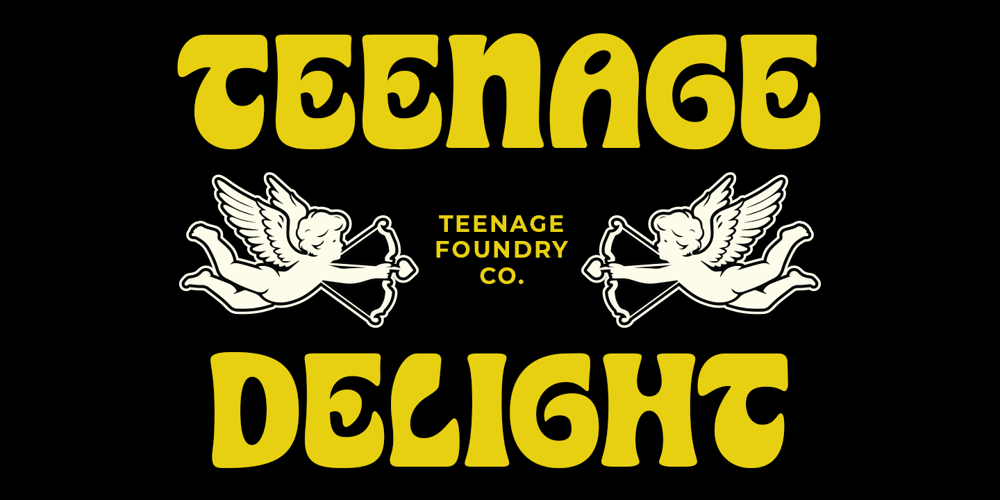
Teenage Delight Font Family was designed by Miftahul Habib and published by Teenage Foundry. Teenage Delight contains 1 styles and family package options. Teenage Delight is a bold display font that is crafted with smooth design, offering a perfect blend of retro and modern aesthetics. With its bold and striking appearance, this font exudes a sense of exuberance and can bring a touch of vibrant energy to any design project.